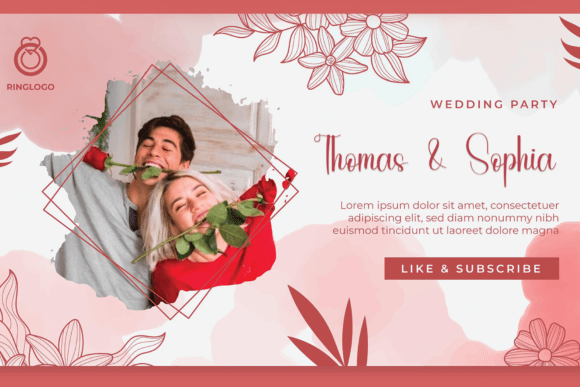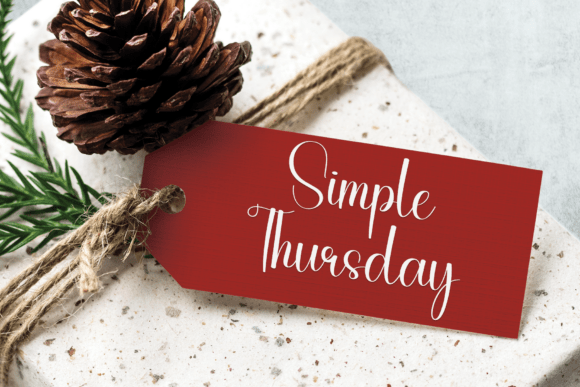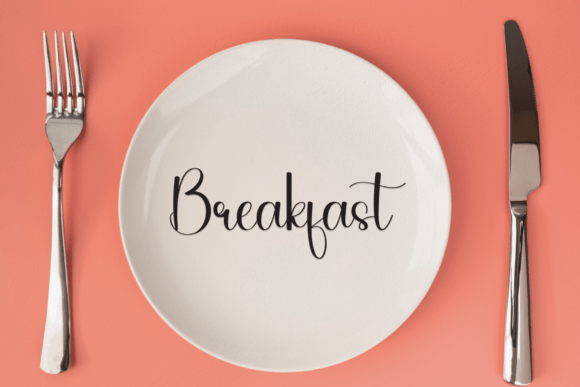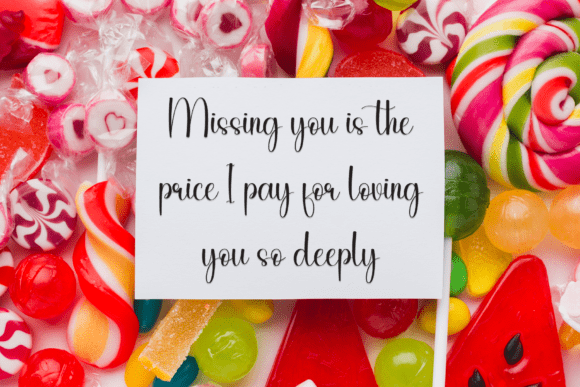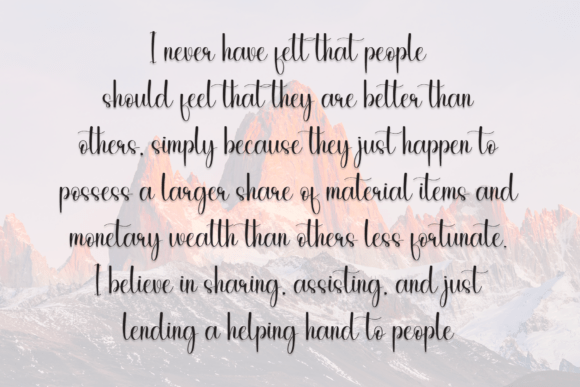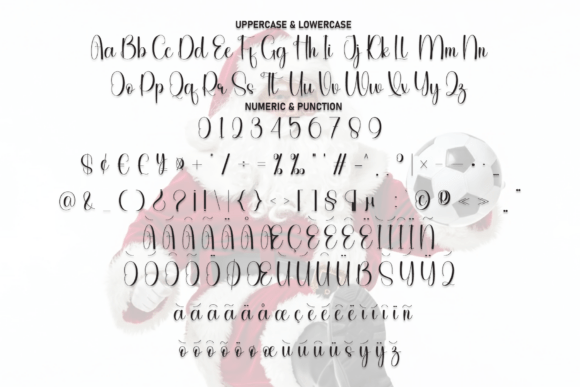
Introduction to Santa Football Font
Introducing a charming hand-drawn display font that radiates warmth and charisma with each individual stroke.
Bursting with joyful, lively energy, this stunning work of art transforms any creative project, making it an exhilarating journey Perfect for mesmerizing wedding invitations, heartfelt greeting cards, or any artistic pursuit that requires a touch of exuberance.
Key Features of Santa Football Font